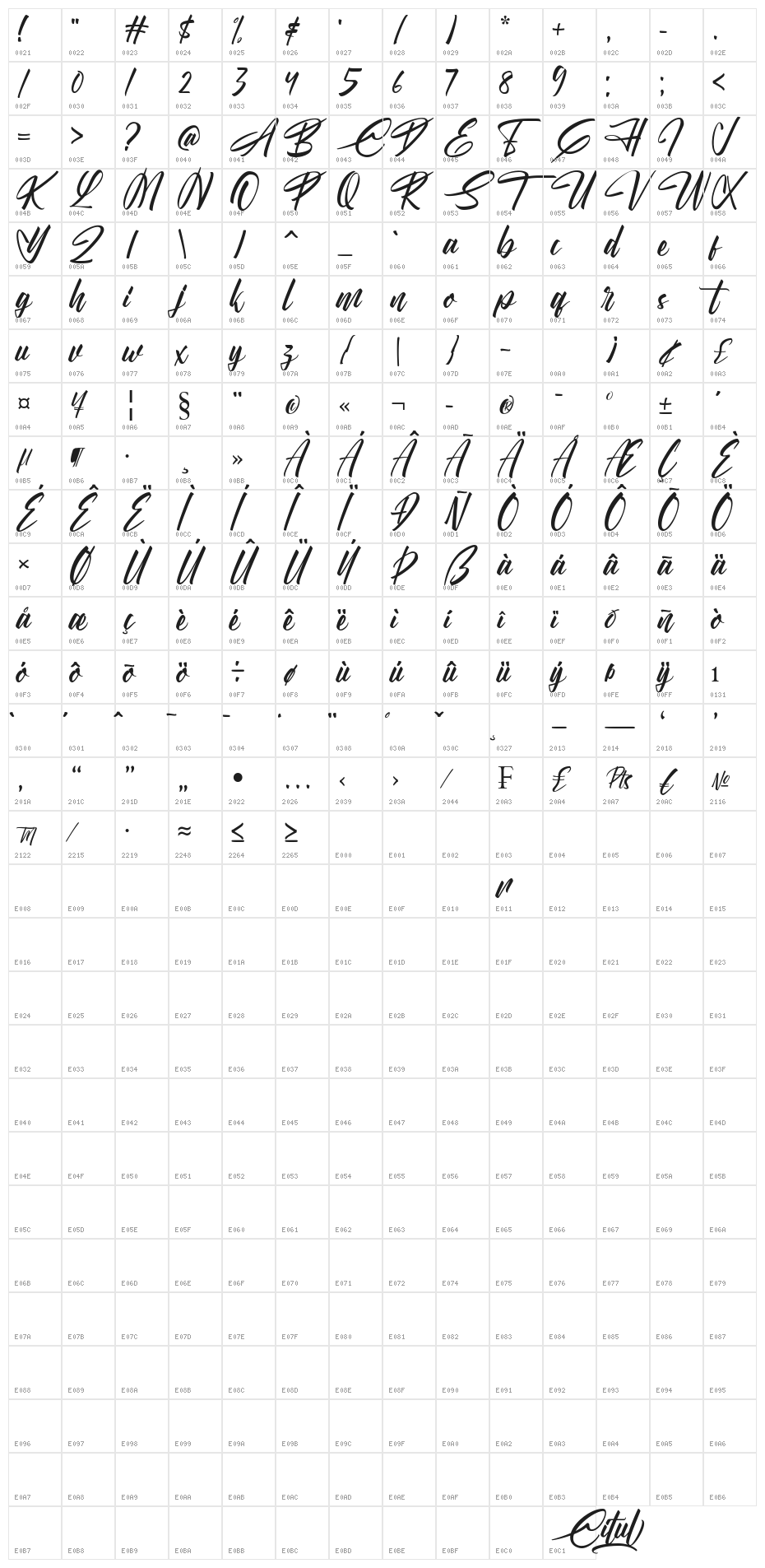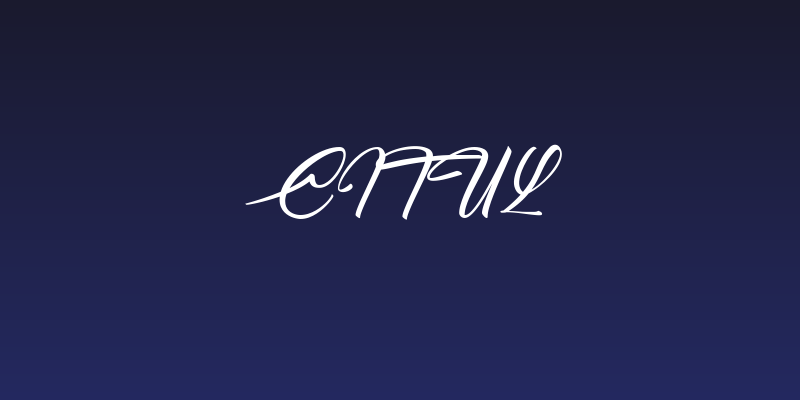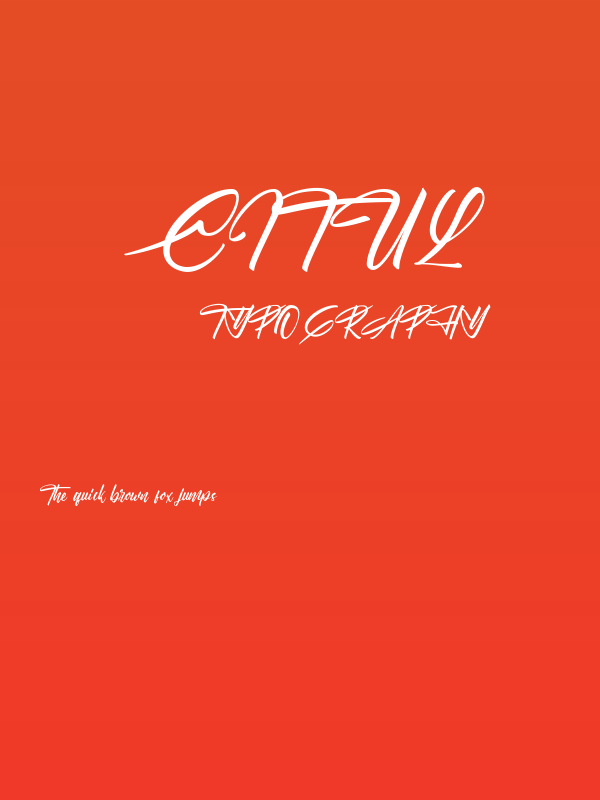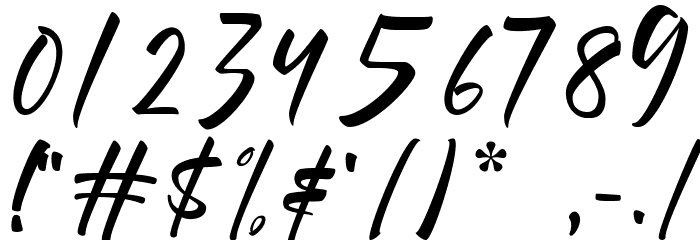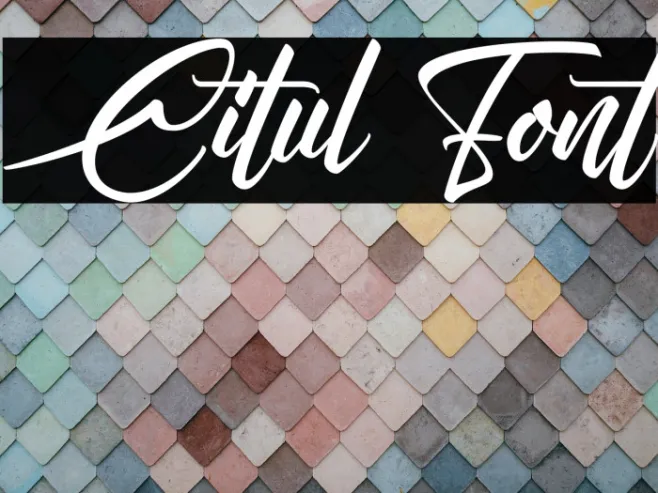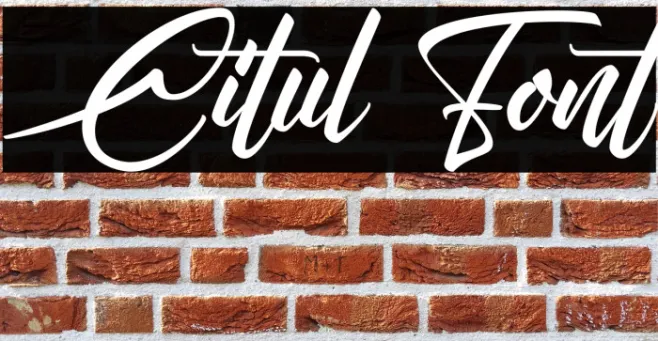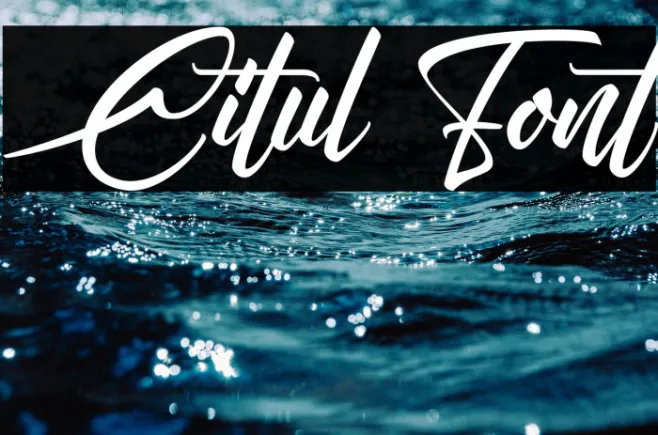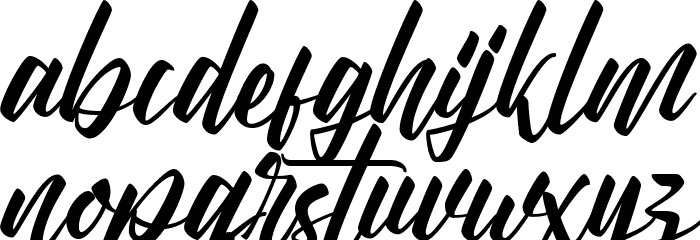
Citul Font
Citul Description
This font features a dynamic and expressive script style, characterized by its fluid and cursive letterforms. The uppercase letters exhibit a graceful flow with elegant loops and swashes, while the lowercase letters maintain a consistent rhythm and smooth connections. The numerals and special characters are designed to complement the overall aesthetic, adding a touch of sophistication. The font's bold strokes and varying line thicknesses contribute to its high contrast, making it suitable for impactful and eye-catching designs. Its handwritten quality evokes a sense of personal touch and creativity, ideal for projects that require a unique and artistic flair.